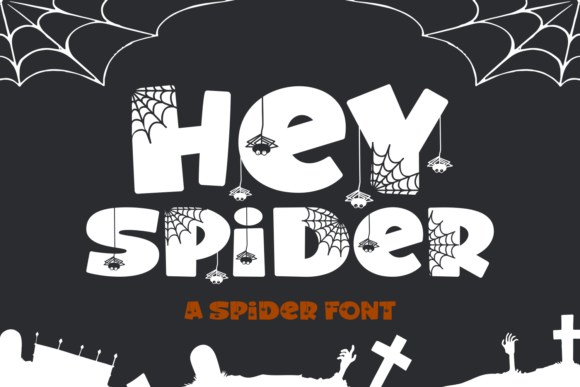
Hey Spider Font: The Ultimate Choice for Fun and Playful Designs
Are you looking for a font that can add a touch of playfulness and authenticity to your designs? Look no further than the Hey Spider font. This cool, fun, and quirky decorative font is perfect for any children activity or school project. In this article, we’ll explore the features and benefits of the Hey Spider font and why it’s the ideal choice for your next creative project.
What is Hey Spider Font?
Hey Spider font is a decorative font designed to bring a sense of fun and playfulness to your designs. Its quirky and unique style makes it perfect for projects that require a touch of whimsy and creativity. The font is inspired by the idea of a friendly spider, which adds to its charm and appeal.
Key Features of Hey Spider Font
The Hey Spider font has several key features that make it stand out from other fonts. Some of its notable features include:
- Playful and Quirky Design: The font has a unique and playful design that is sure to grab attention.
- Decorative Style: The font has a decorative style that makes it perfect for use in children’s activities, school projects, and other creative endeavors.
- Authentic Feel: The font has an authentic feel that makes it relatable and engaging.
- Easy to Read: Despite its decorative style, the font is easy to read and understand.
Benefits of Using Hey Spider Font
There are several benefits to using the Hey Spider font in your designs. Some of the benefits include:
- Grabs Attention: The font’s playful and quirky design is sure to grab attention and make your designs stand out.
- Adds Personality: The font adds a touch of personality to your designs, making them more relatable and engaging.
- Perfect for Children: The font is perfect for use in children’s activities and school projects, as it is fun and easy to read.
- Versatile: The font can be used in a variety of designs, from posters and flyers to digital graphics and more.
Use Cases for Hey Spider Font
The Hey Spider font is perfect for a variety of use cases, including:
- Children’s Activities: The font is perfect for use in children’s activities, such as coloring books, puzzles, and games.
- School Projects: The font is ideal for use in school projects, such as posters, presentations, and reports.
- Digital Graphics: The font can be used in digital graphics, such as social media posts, blog headers, and more.
- Posters and Flyers: The font is perfect for use in posters and flyers, as it is eye-catching and easy to read.
Tips and Tricks for Using Hey Spider Font
Here are some tips and tricks for using the Hey Spider font:
- Use it Sparingly: Use the font sparingly, as it can be overwhelming if used too much.
- Pair it with Other Fonts: Pair the font with other fonts to create a unique and interesting design.
- Experiment with Colors: Experiment with different colors to find the perfect combination for your design.
- Keep it Simple: Keep your design simple and easy to read, even when using a decorative font like Hey Spider.
In conclusion, the Hey Spider font is a cool, fun, and quirky decorative font that is perfect for any children activity or school project. Its playful and authentic design makes it a great choice for adding a touch of personality to your designs. With its ease of use and versatility, the Hey Spider font is a great addition to any designer’s toolkit.
- What is the Hey Spider font?: The Hey Spider font is a decorative font designed to bring a sense of fun and playfulness to your designs.